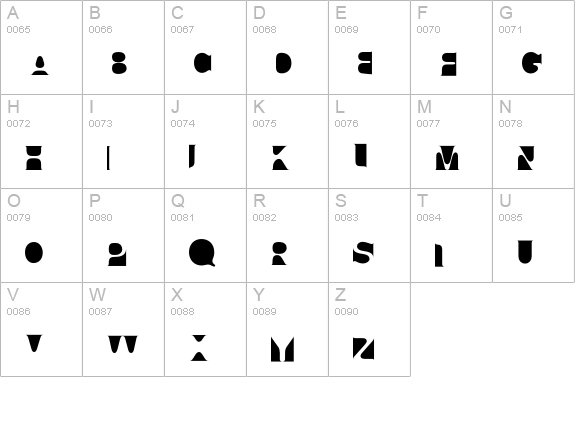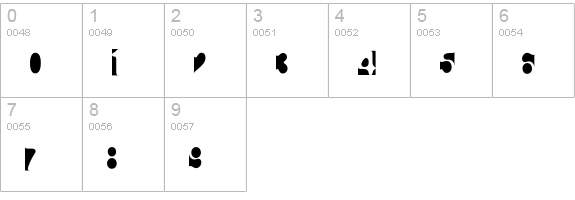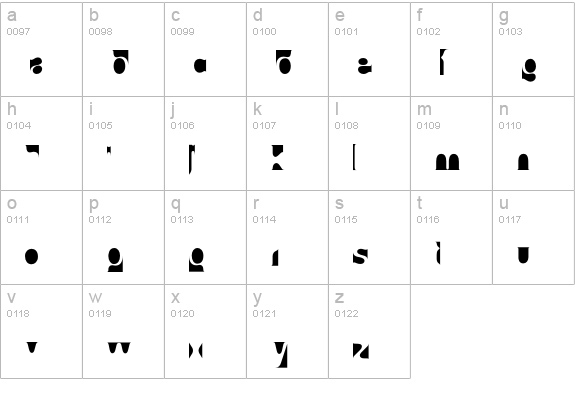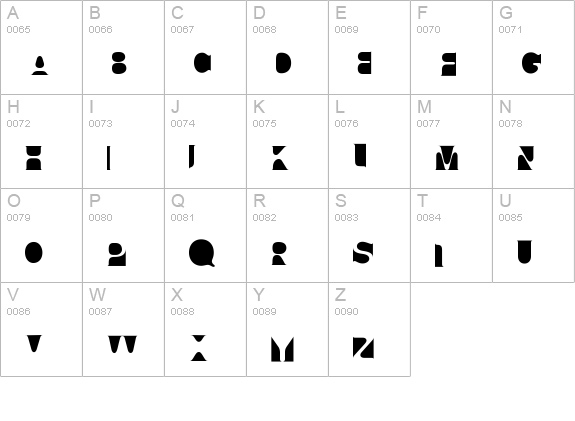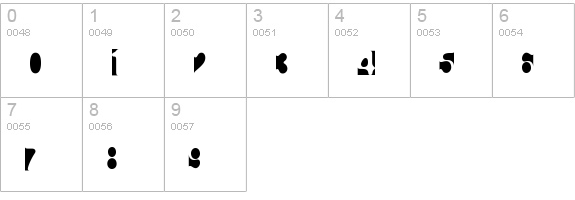
AutoSuggestionPlain Font Details
AutoSuggestionPlain font is a sleek and modern typeface that is perfect for a wide range of design projects. With its clean lines and contemporary look, this font exudes professionalism and sophistication. The simplicity of AutoSuggestionPlain makes it versatile and suitable for various applications, from branding to editorial design. Best of all, AutoSuggestionPlain is available for free download at FontsMarket.com. This means you can easily access this stylish font and incorporate it into your projects without any cost. Whether you're designing a website, creating marketing materials, or working on a personal project, AutoSuggestionPlain is a fantastic choice that will elevate your design work and leave a lasting impression. Download it now and see the difference it can make in your designs!